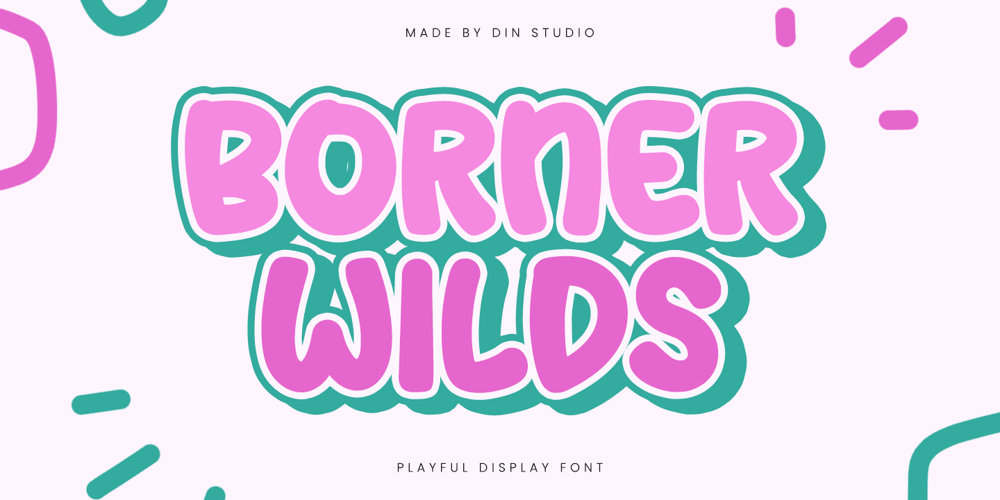
Borner Wilds
Borner Wilds font
Borner Wilds Font Family was designed by Donis Miftahudin and published by Yumna Type. Borner Wilds contains 1 styles and family package options. Borner Wilds is a lively display font that combines playful charm with bold, all-caps lettering. Crafted with a bold weight and very low contrast, this font exudes a confident and energetic vibe. The constant letter proportions ensure a cohesive and balanced appearance, making Borner Wilds an excellent choice for eye-catching headlines, dynamic posters, and vibrant branding. In addition, enjoy the features here.Features: Multilingual Supports PUA Encoded Numerals and Punctuations Borner Wilds fits in headlines, logos, posters, flyers, branding materials, print media, editorial layouts, and many more designs. Find out more ways to use this font by taking a look at the font preview.Thanks for purchasing our fonts. Hopefully, you have a great time using our font. Feel free to contact us anytime for further information or when you have trouble with the font. Thanks a lot and happy designing.